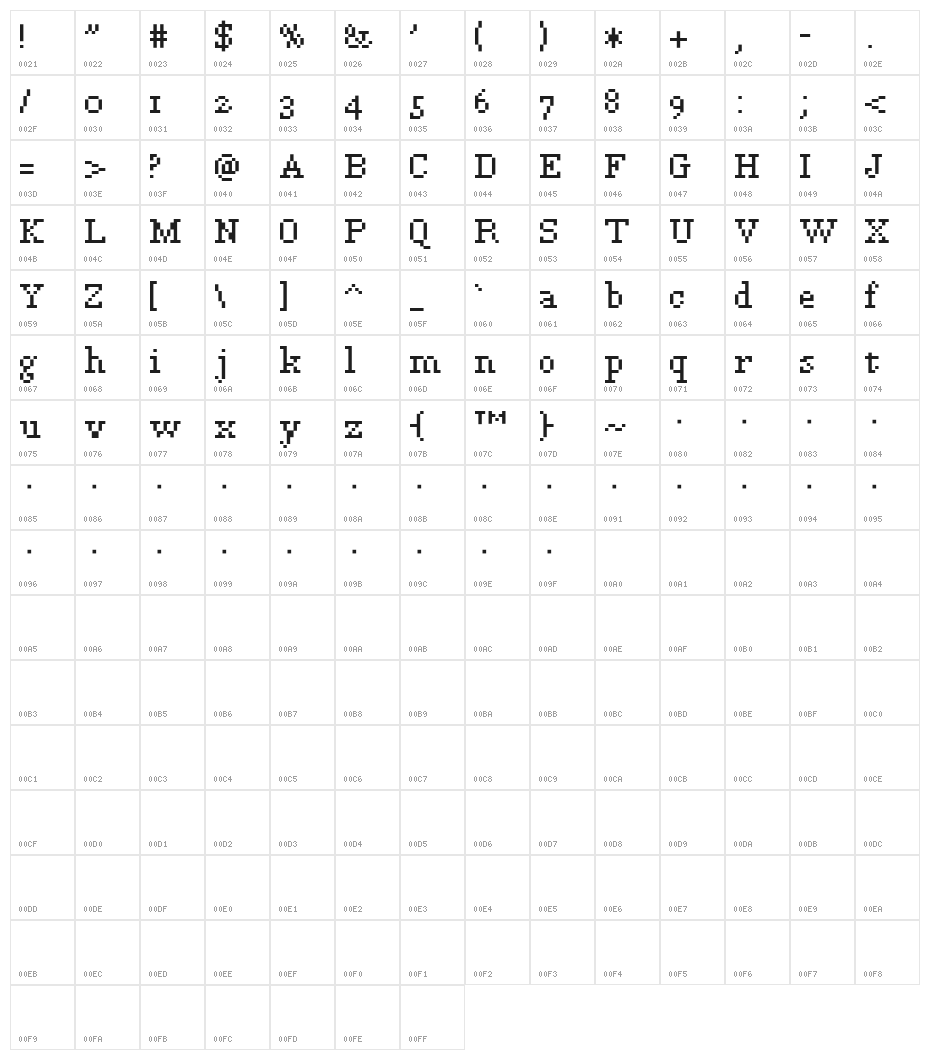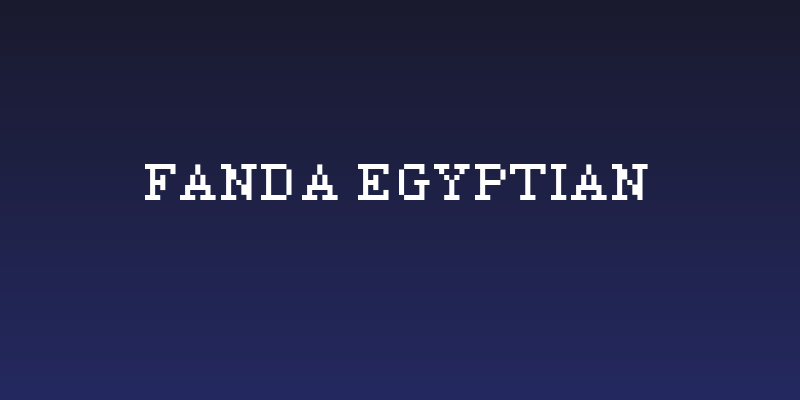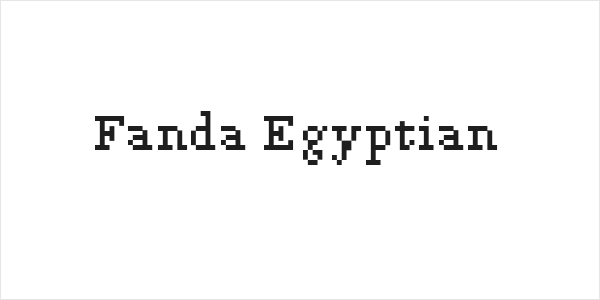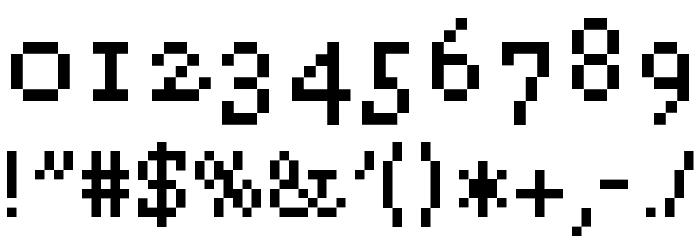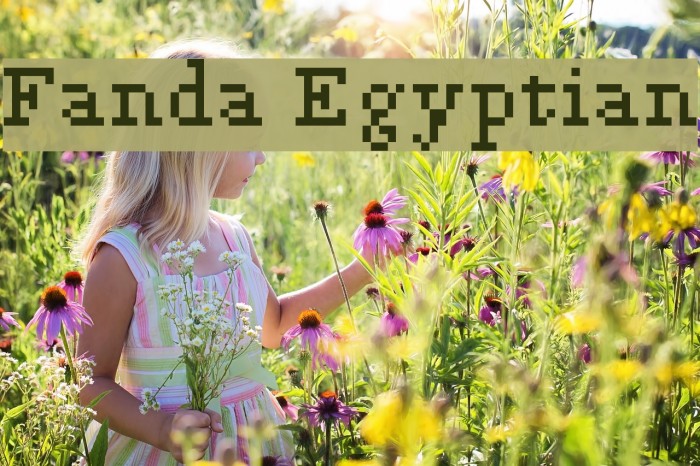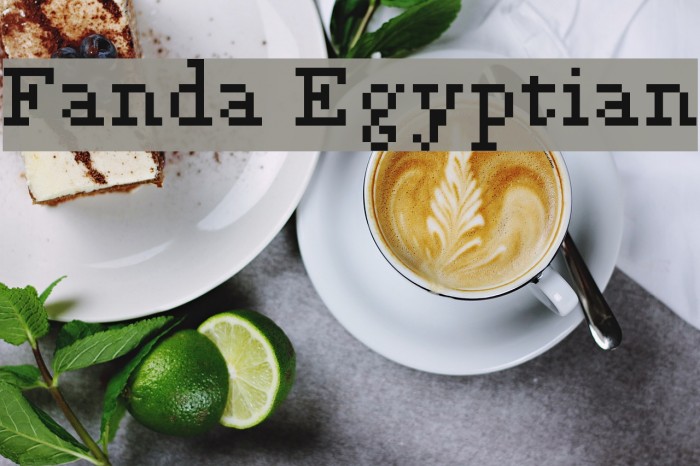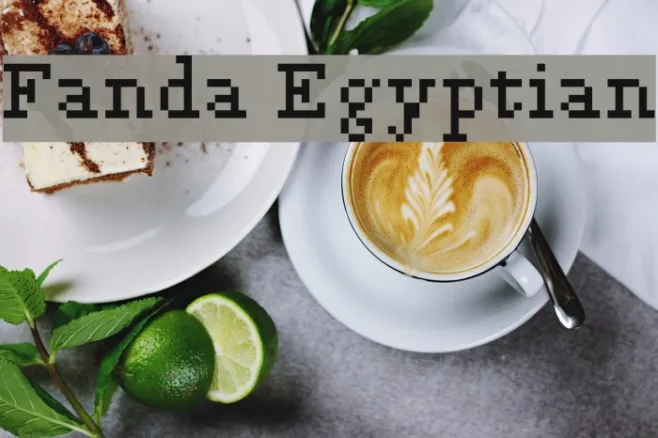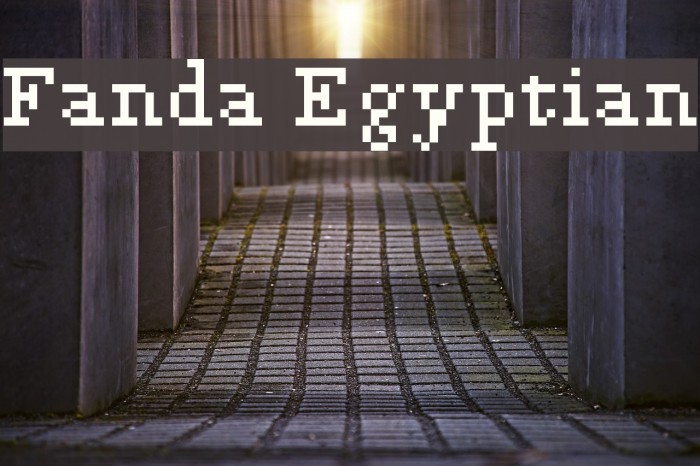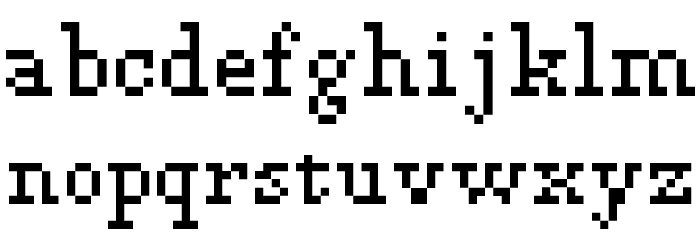
Fanda Egyptian Font
Fanda Egyptian Description
This font features a distinct slab serif style with bold, block-like serifs that give it a strong and authoritative appearance. The characters are well-defined with a consistent stroke width, providing a uniform and structured look. The uppercase letters are particularly prominent, with a commanding presence, while the lowercase letters maintain a balanced and cohesive design. The numerals are clear and legible, matching the overall boldness of the alphabet. Special characters are included, maintaining the same robust style. This font is ideal for making a statement, with its bold and impactful design.
| Proposed Projects | Ideal for headlines, posters, branding, and any project requiring a bold, authoritative typeface. |